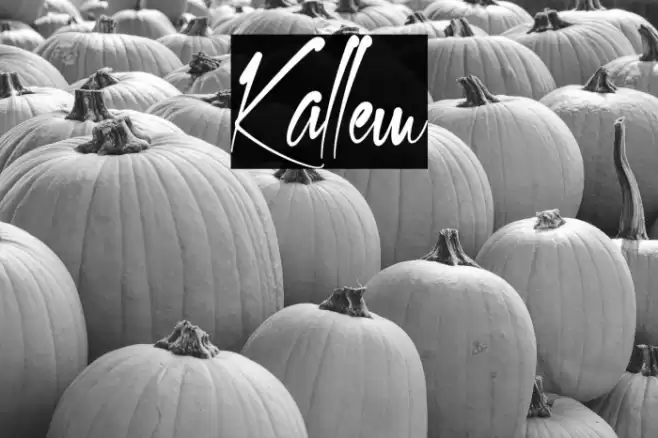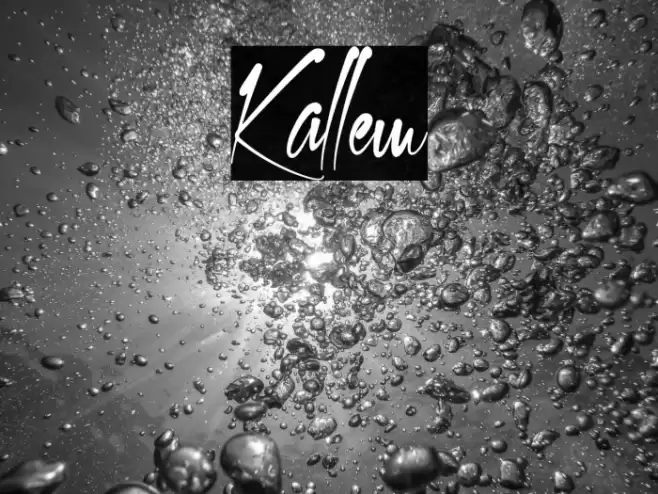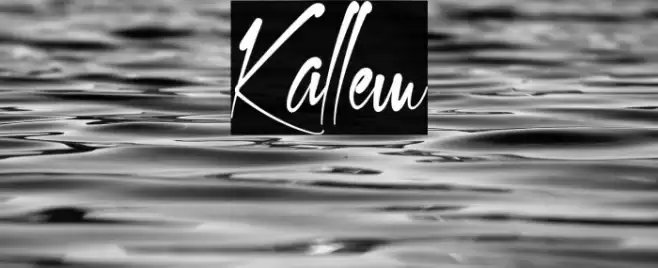
Kallem Font
Kallem Description
This font exudes a dynamic and expressive style, characterized by its fluid, cursive strokes that mimic the elegance of handwritten script. The uppercase letters are bold and sweeping, with a distinct flair that adds a sense of movement and energy. The lowercase letters maintain a consistent flow, enhancing readability while preserving the artistic touch. Numbers and special characters are crafted with the same attention to detail, ensuring a cohesive look throughout. The overall design is both modern and artistic, making it suitable for creative projects that require a personal and stylish touch.
A dynamic, cursive script font with expressive, fluid strokes from Regular fonts.